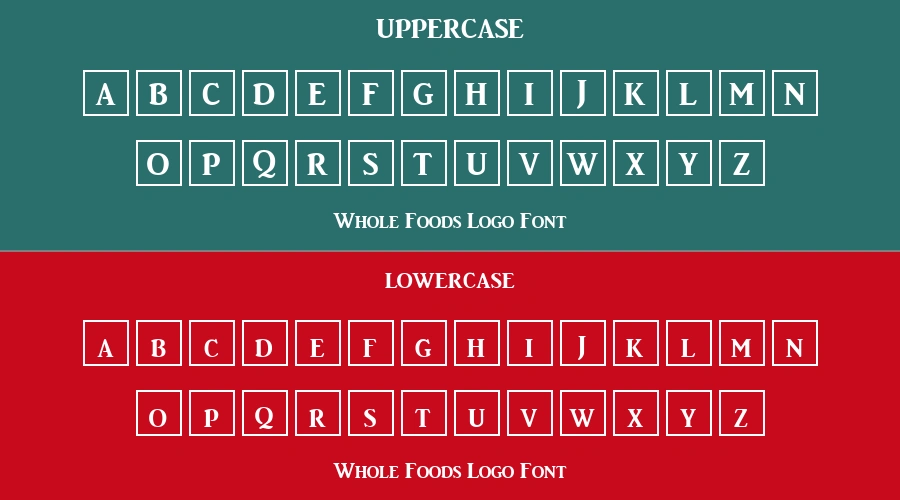
About Whole Foods Logo Font
Whole Foods Logo Font stands out for its distinctive combination of expressive curves and precision. Ideal for medical texts, it provides the adaptability and brand alignment that professional projects demand. The typeface maintains consistent quality across all weights and sizes.
Key features include refined bracketed serifs and practical tabular figures, enhancing typographic expression. In page numbers applications, Whole Foods Logo Font demonstrates exceptional purchase influence. The joint detail and contemporary relevance contribute to its distinctive character and professional appeal.
Whole Foods Logo Font |